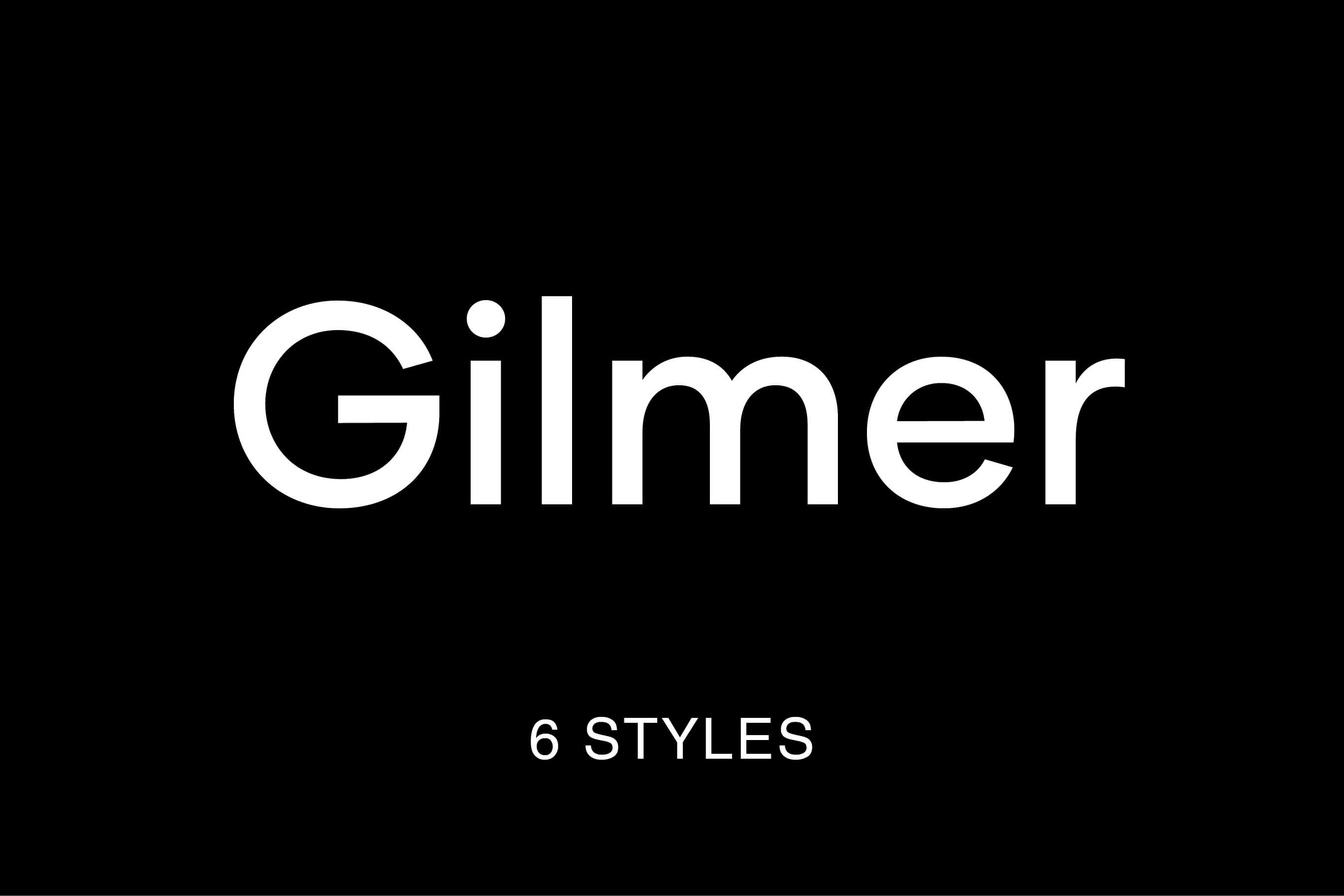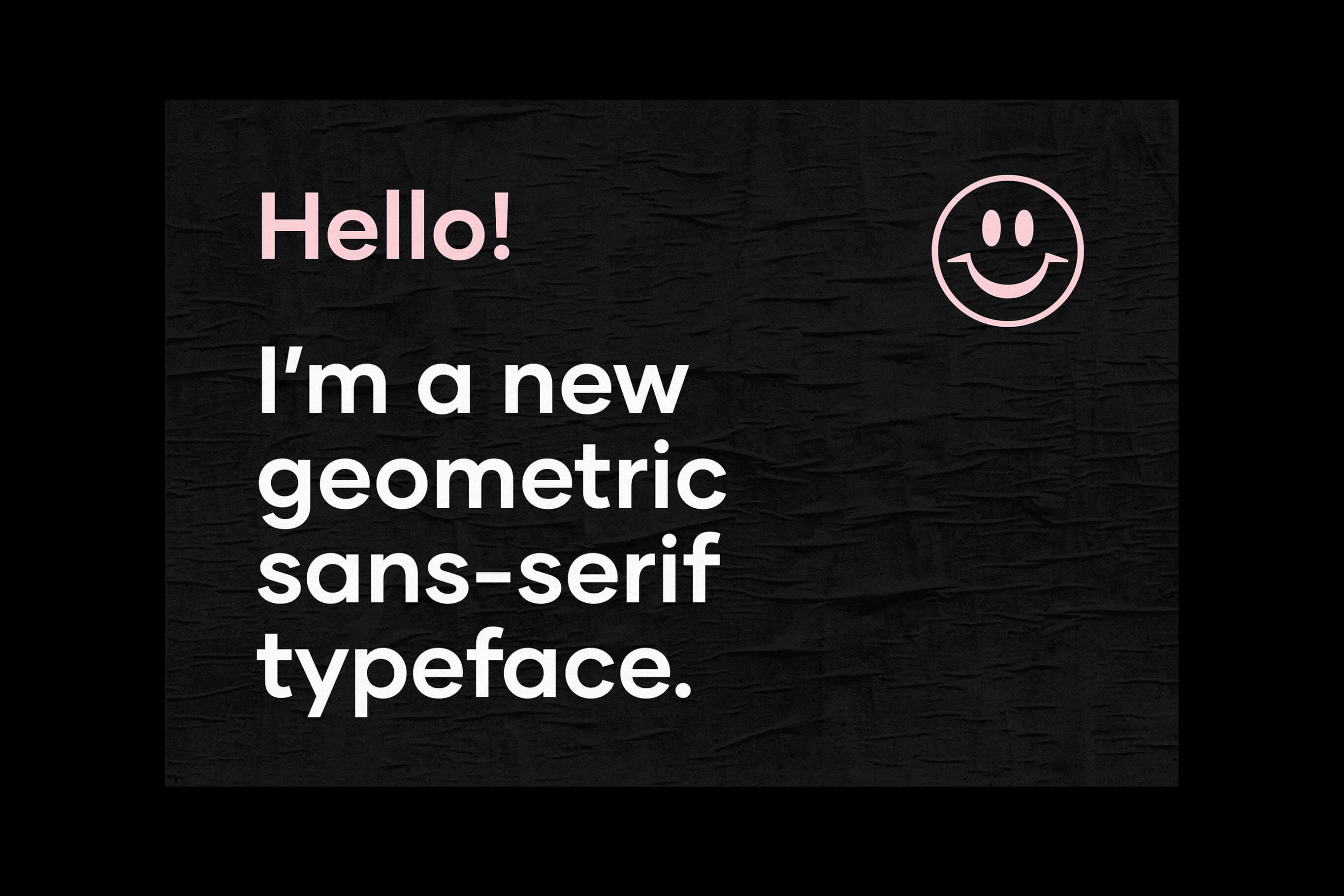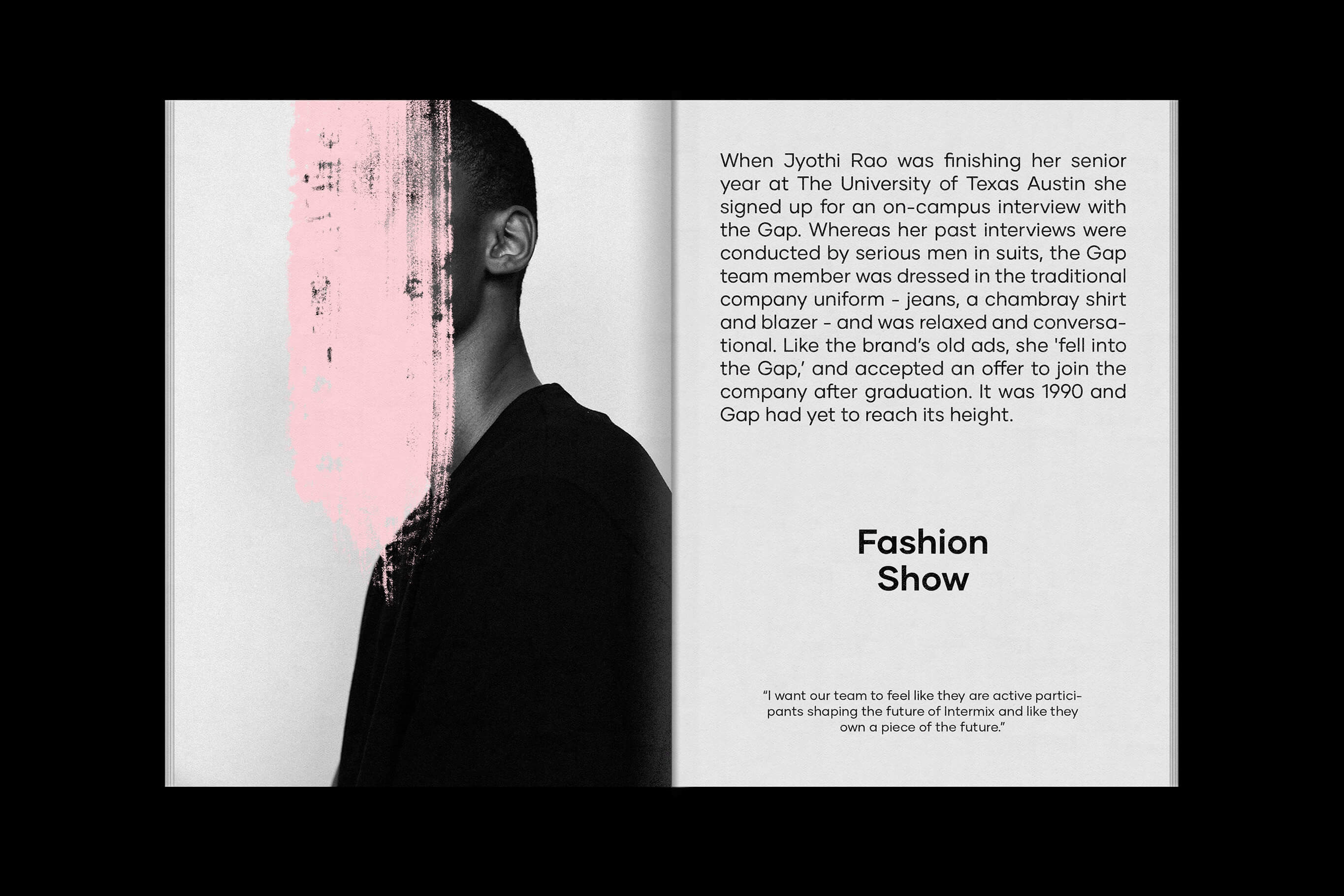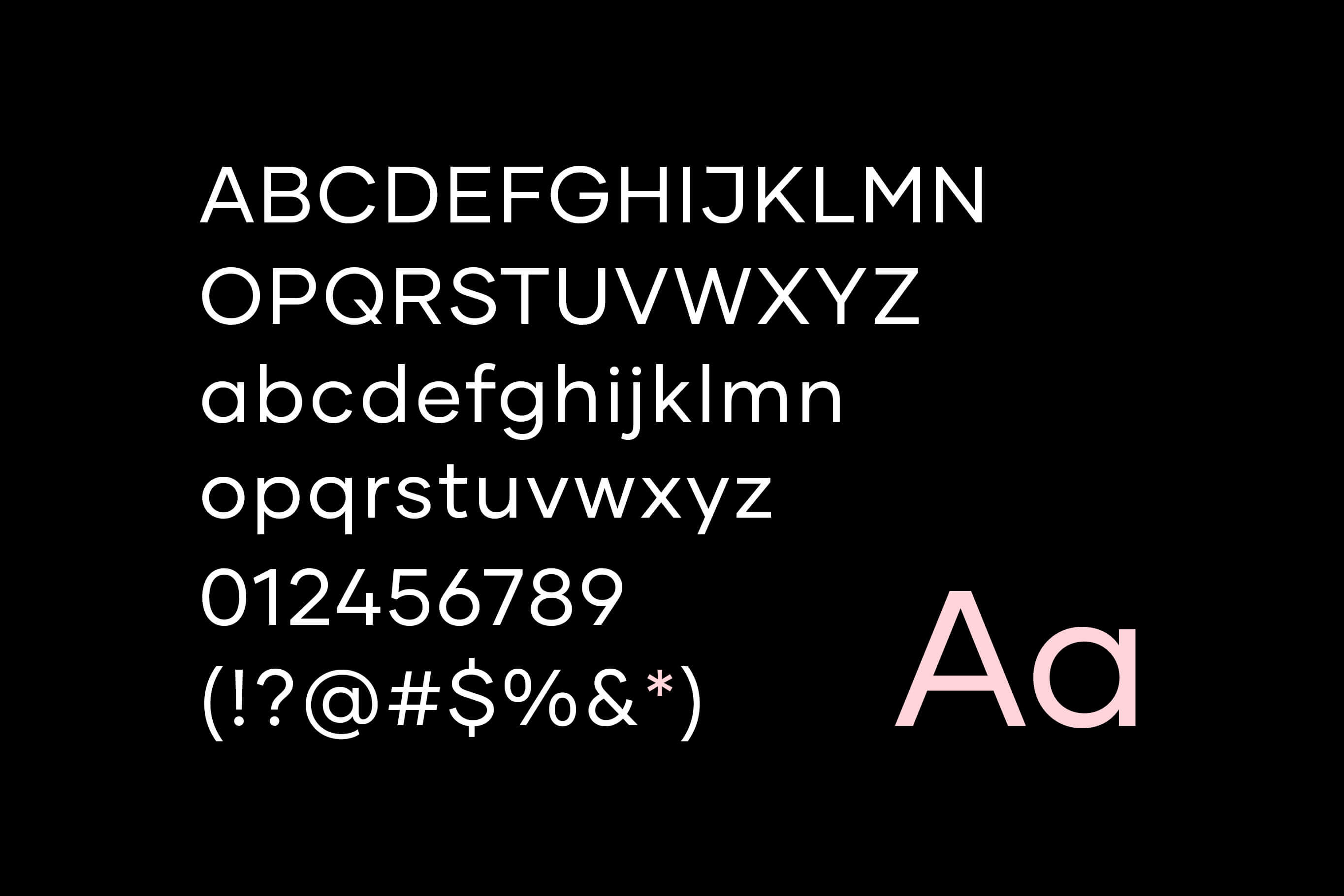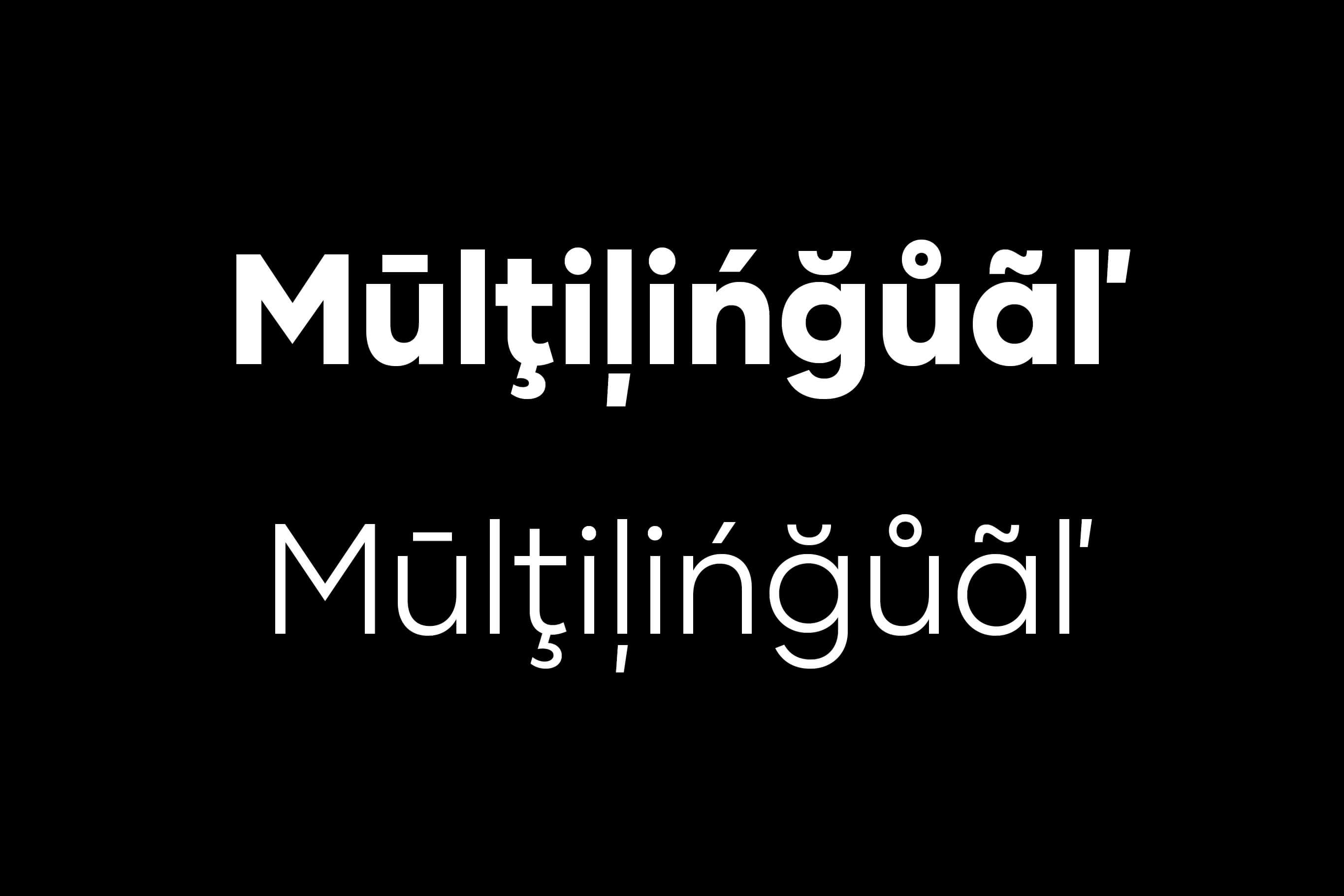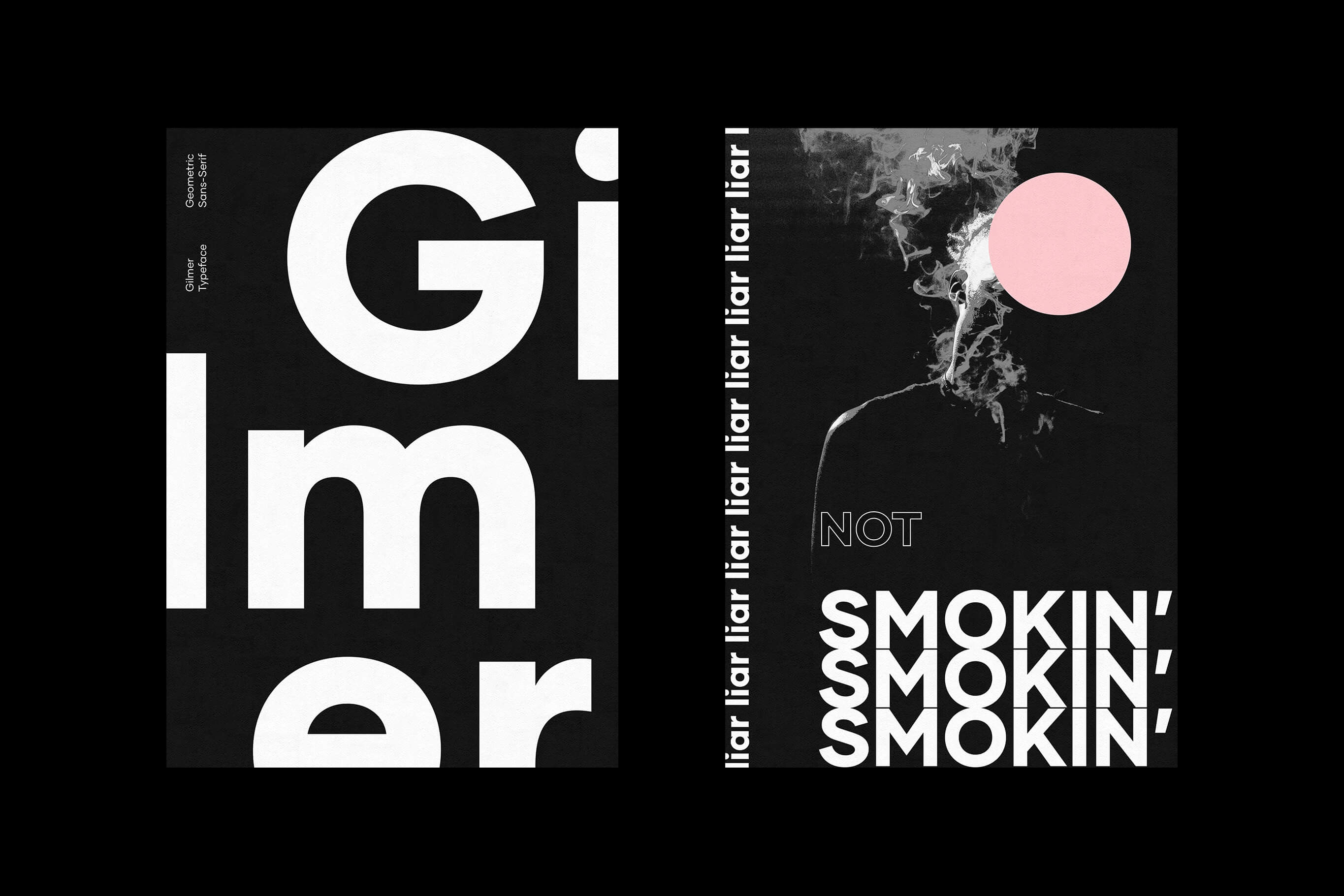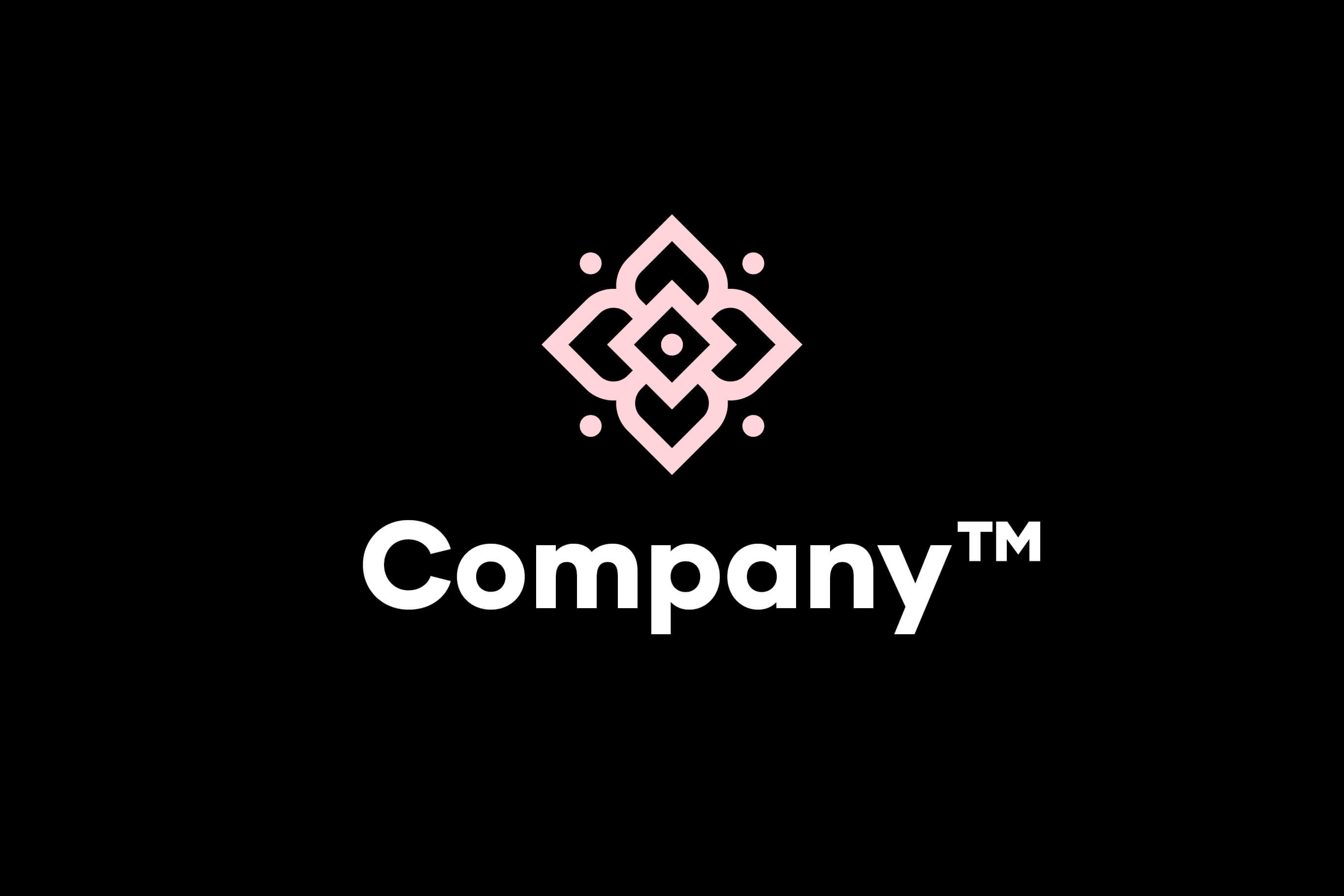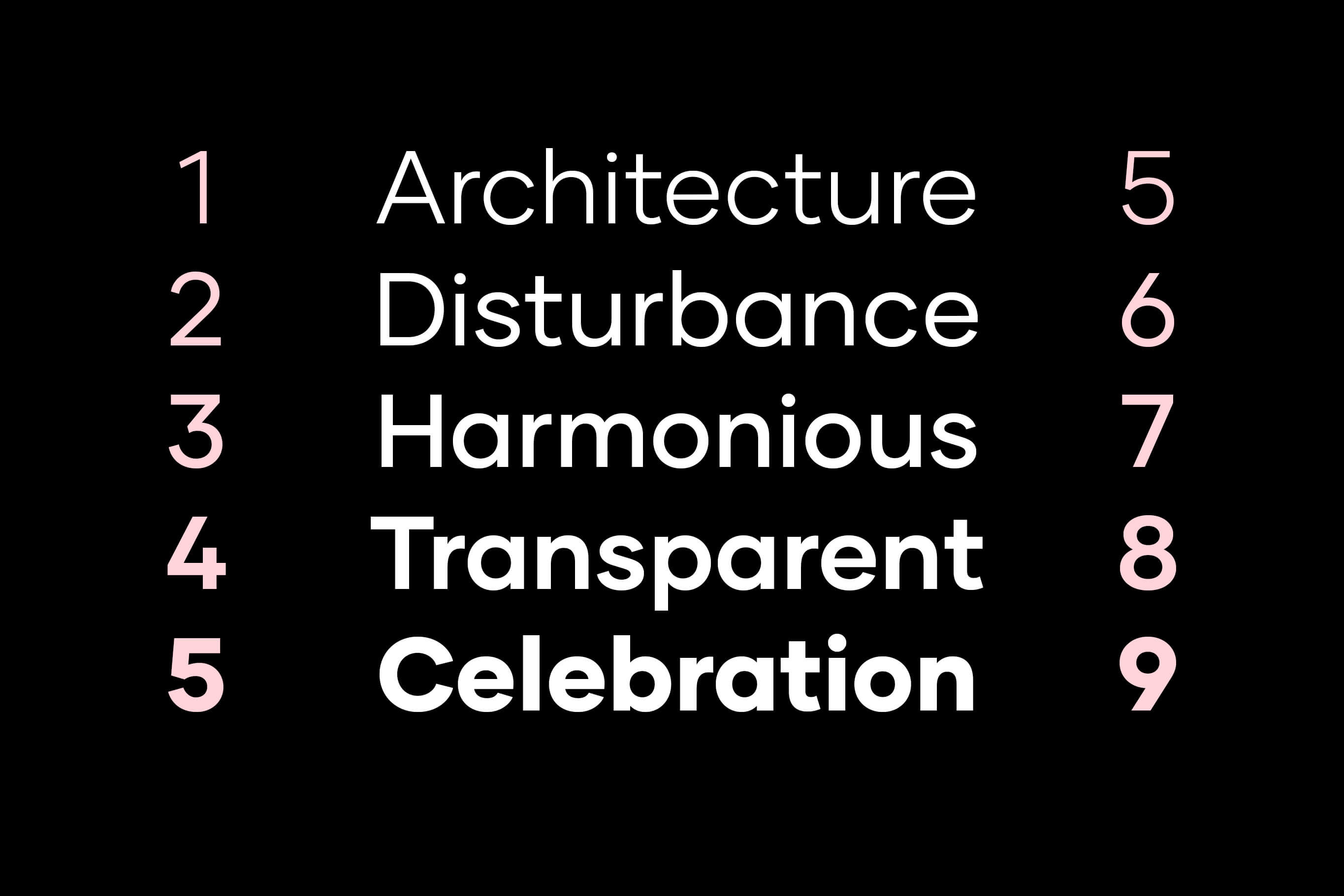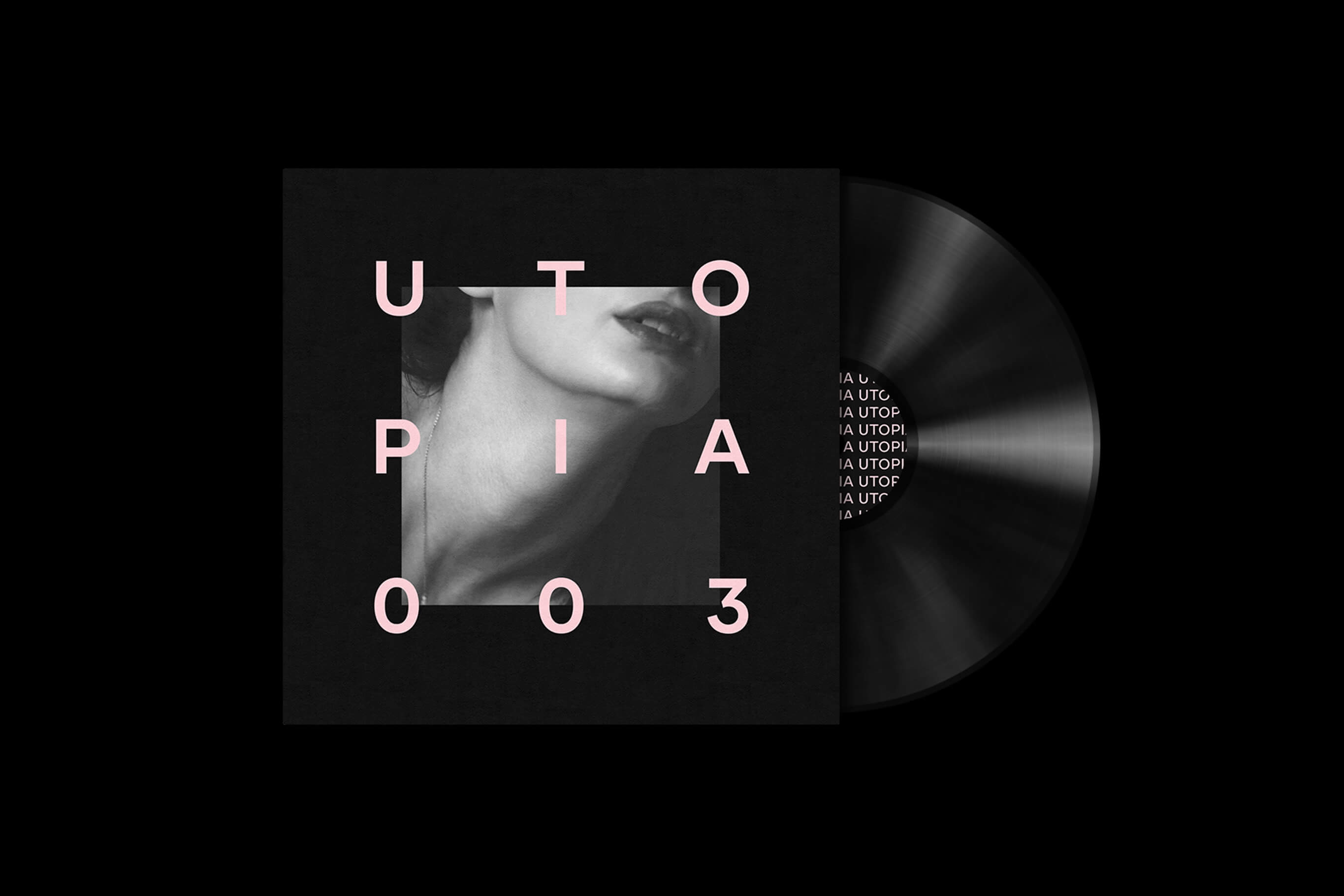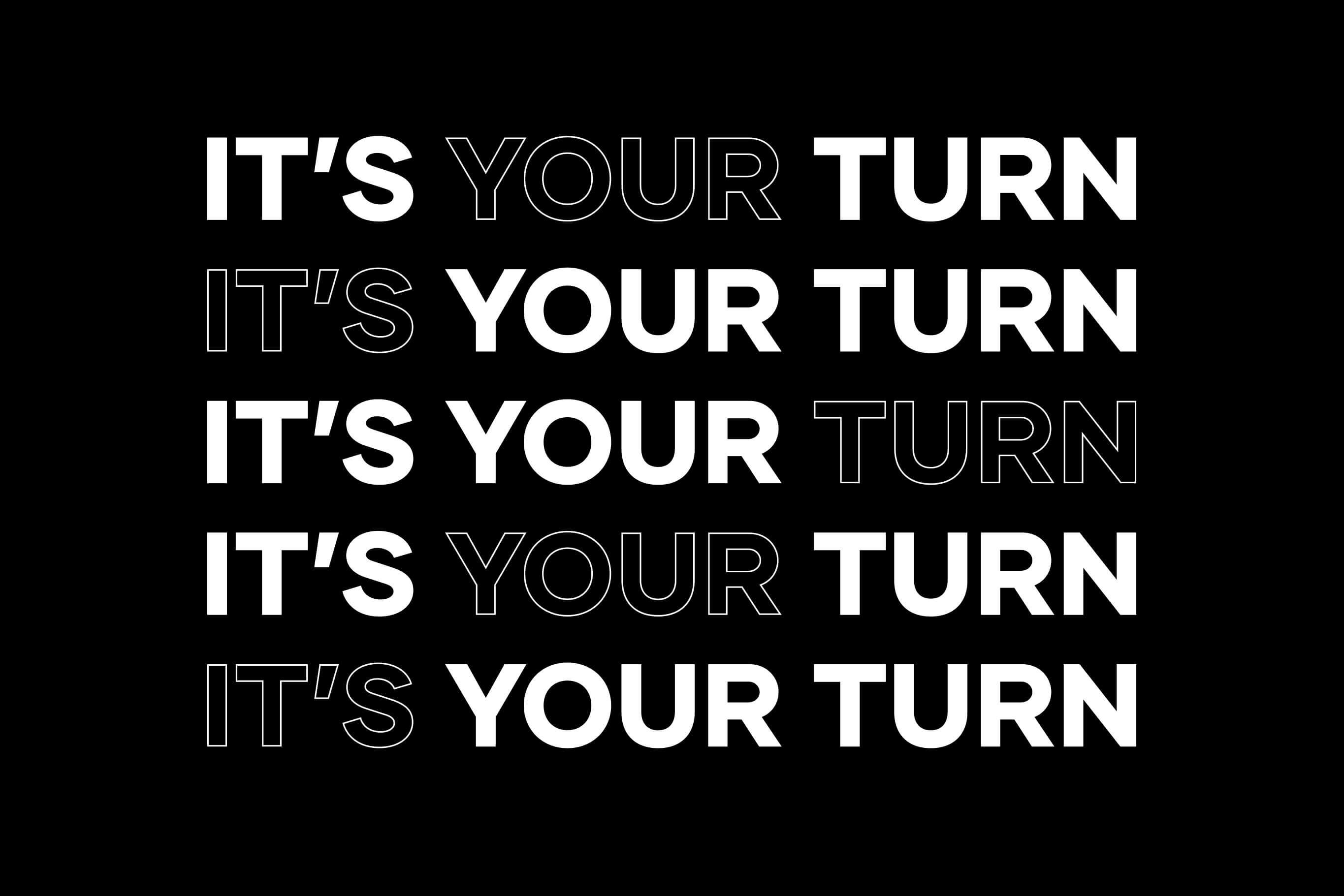
Gilmer is a geometric sans-serif font family inspired by the iconic typefaces like Futura and Avant Garde. Gilmer has a big x-height value, ​geometrical letterforms, sharp edges and minimal stroke contrast as the neo-grotesk fonts from 20th century. The typeface is versatile and can be successfully used in magazines, posters, branding, websites etc.